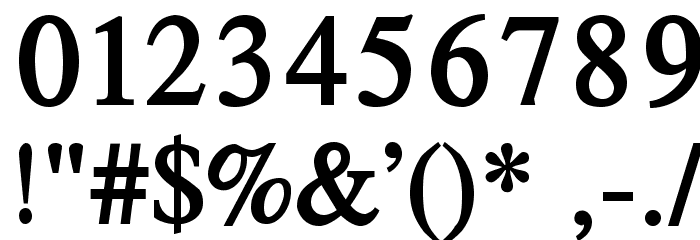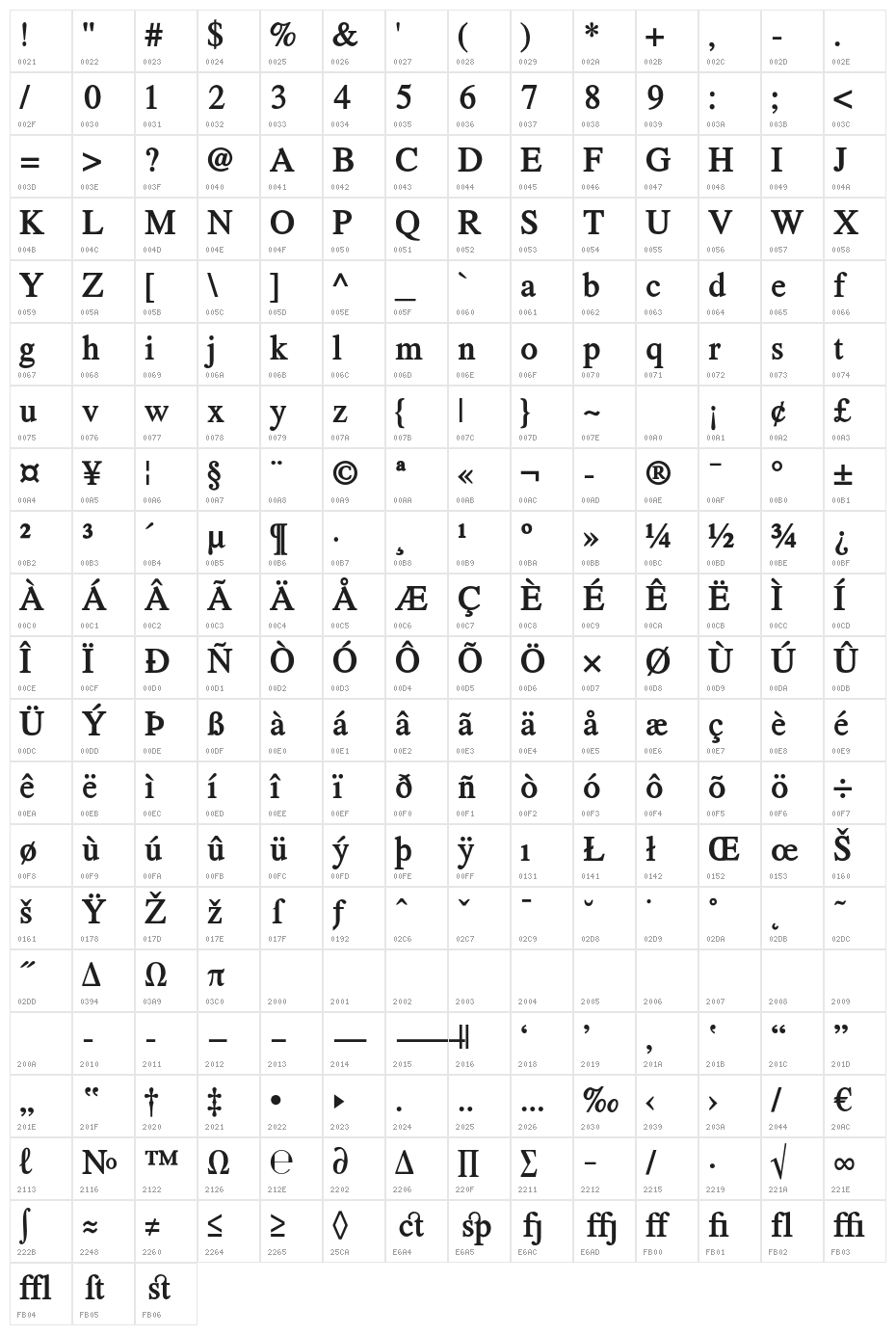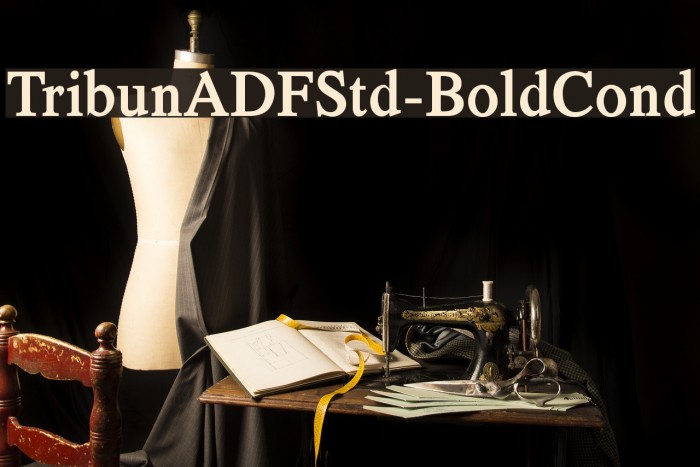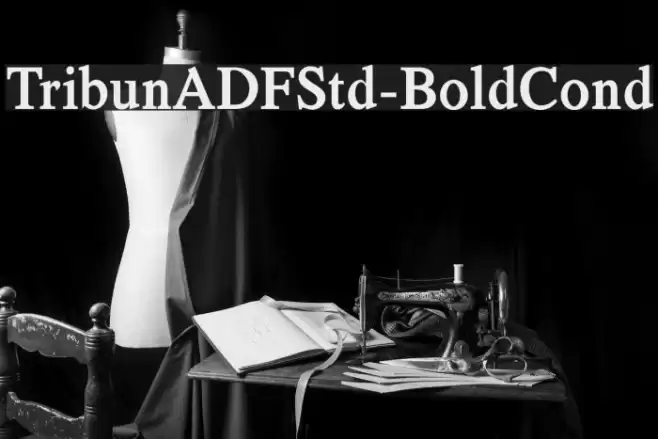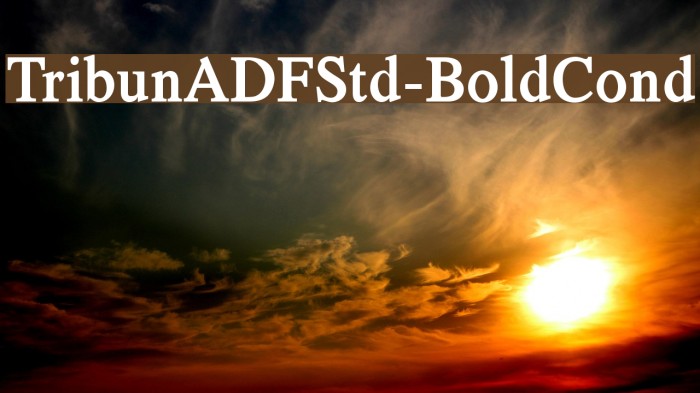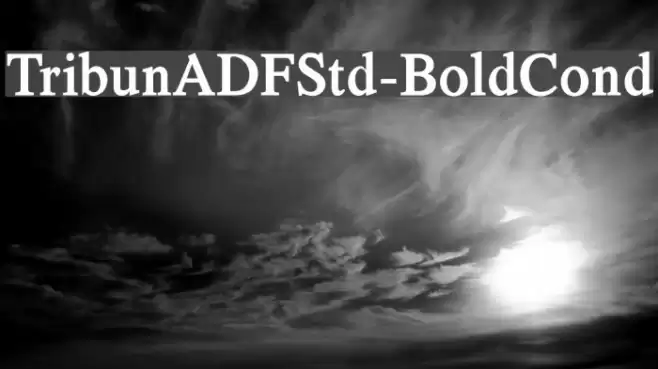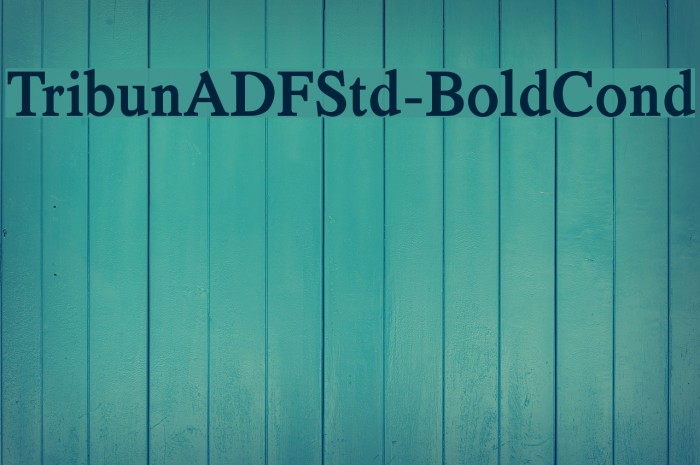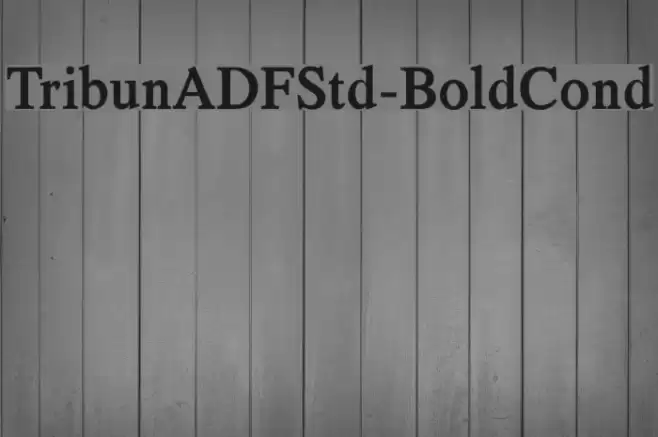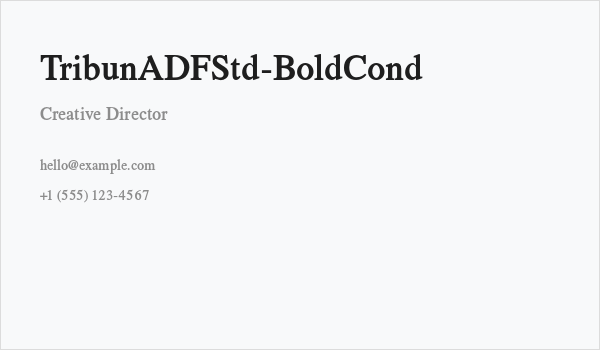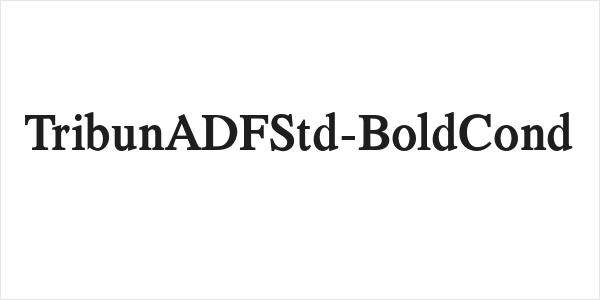
TribunADFStd-BoldCond Font
TribunADFStd-BoldCond Description
This font features a bold and commanding presence with its strong serif design. The characters are well-defined with a classic touch, making it suitable for formal and authoritative text. The uppercase letters are particularly striking, with a consistent weight that ensures readability and impact. The lowercase letters maintain a harmonious balance with the uppercase, offering a smooth and elegant flow. The numerals are clear and distinct, complementing the overall style. Special characters are crafted with precision, adding versatility to the font's use. The bold weight and condensed width make it ideal for headlines and titles where space is limited but impact is necessary.
| Use Case | Headlines, Titles, Branding |
| Proposed Projects | Ideal for use in newspapers, magazines, book covers, and corporate branding where a strong, traditional look is desired. |